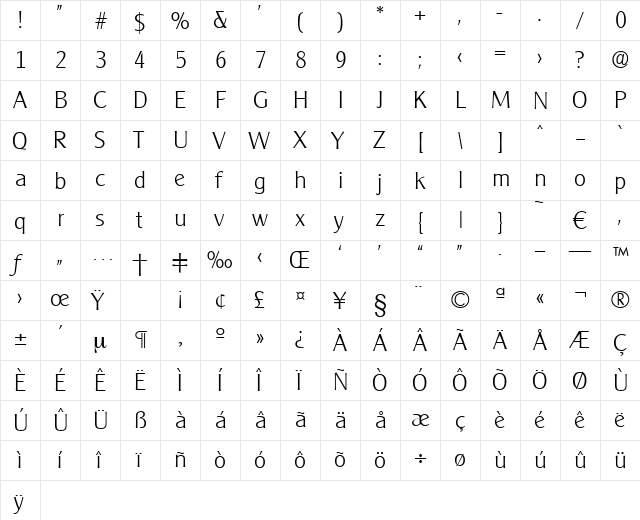
Cleargothic-Xlight Regular Font Preview
Cleargothic-Xlight Regular
Cleargothic-Xlight Regular Font Details
Design Context for Cleargothic-Xlight Typeface
Cleargothic-Xlight has the quiet confidence of well-executed sans-serif typography: versatile, unobtrusive, and dependable at any size. The delicate stroke weight brings airiness and refinement to layouts.
Ideal for fashion and beauty branding, minimal editorial layouts, and premium digital experiences.
Font Pairing: Pair Cleargothic-Xlight with a medium or bold serif for headlines — the weight contrast creates an elegant, high-end feel.
Pro Tip: Avoid using Cleargothic-Xlight at very small sizes where its slender strokes can disappear. It performs best at medium to large sizes.